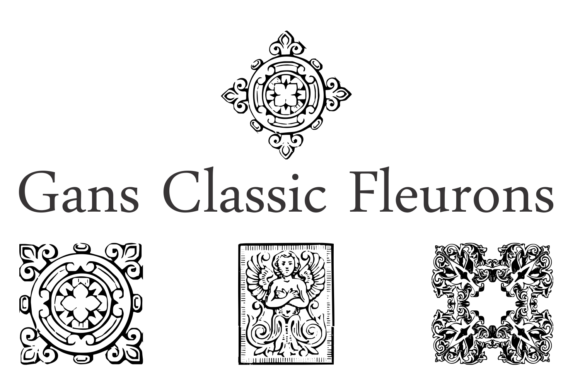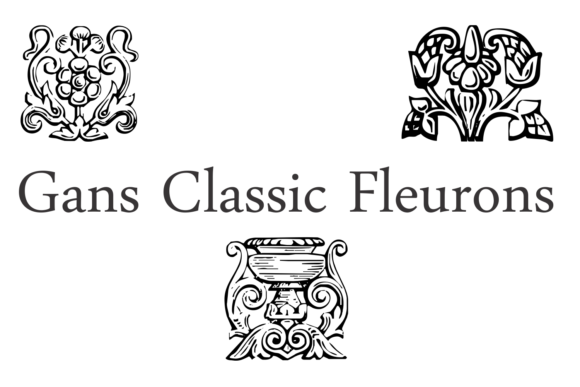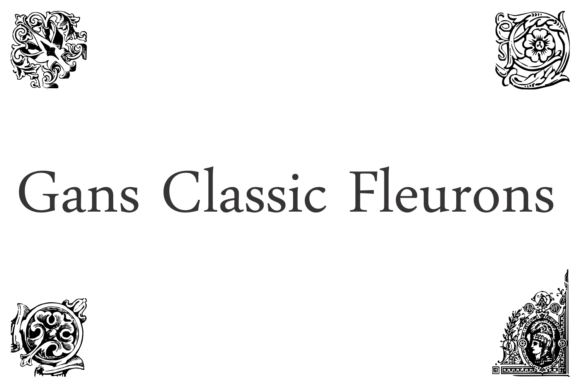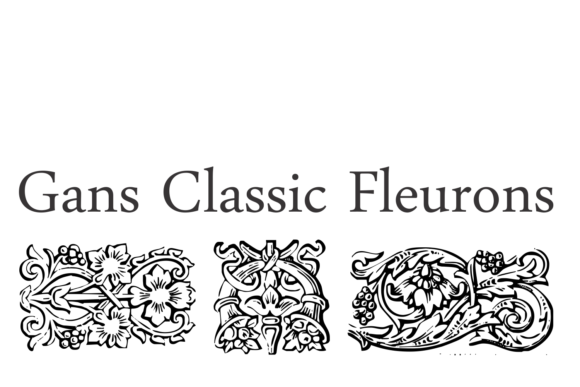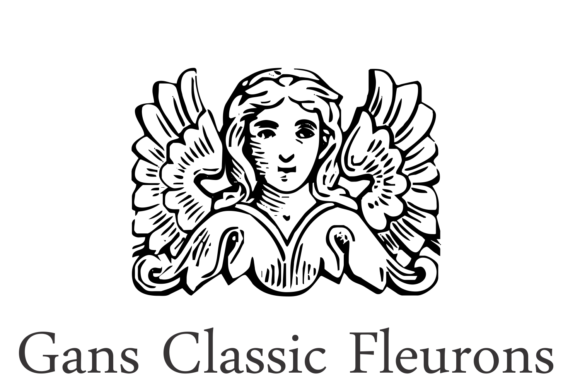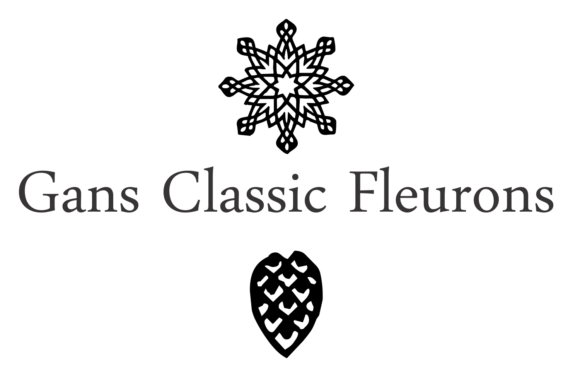
Gans Classic Fleurons Font: Elevate Your Designs with Vintage Flair
Are you a designer or crafter looking to add a touch of elegance and sophistication to your work? Look no further than the Gans Classic Fleurons Font. This stunning dingbat/decorative display font is packed with a wide range of flourishes and ornaments, perfect for creating unique and eye-catching designs that exude a vintage and antique feel.
What is Gans Classic Fleurons Font?
The Gans Classic Fleurons Font is a decorative font that features an extensive collection of fleurons, ornaments, and flourishes. These intricate designs can be used to add a touch of classic elegance to any project, from wedding invitations and stationery to branding and advertising materials. With its rich, vintage aesthetic, this font is perfect for designers and crafters who want to create unique and memorable designs that stand out from the crowd.
Key Features of Gans Classic Fleurons Font
- Extensive character set: The Gans Classic Fleurons Font features a vast array of fleurons, ornaments, and flourishes, giving you a wide range of design options to choose from.
- Vintage aesthetic: The font’s classic, antique feel makes it perfect for creating designs that evoke a sense of nostalgia and sophistication.
- Dingbat/decorative display font: The Gans Classic Fleurons Font is designed specifically for use as a decorative display font, making it ideal for headlines, titles, and other design elements.
- Easily customizable: The font can be easily scaled, rotated, and manipulated to fit your design needs.
Uses for Gans Classic Fleurons Font
The Gans Classic Fleurons Font is incredibly versatile, and can be used in a wide range of design applications, including:
- Wedding invitations and stationery: Add a touch of elegance and sophistication to your wedding designs with the Gans Classic Fleurons Font.
- Branding and advertising: Use the font to create eye-catching logos, business cards, and advertising materials that stand out from the crowd.
- Packaging design: Add a vintage touch to your packaging designs with the Gans Classic Fleurons Font.
- Digital design: Use the font to create stunning digital designs, including social media graphics, blog headers, and more.
Tips for Using Gans Classic Fleurons Font
To get the most out of the Gans Classic Fleurons Font, here are a few tips to keep in mind:
- Use it sparingly: While the Gans Classic Fleurons Font is incredibly beautiful, it can be overwhelming if overused. Use it sparingly to add a touch of elegance to your designs.
- Experiment with different sizes and colors: Don’t be afraid to experiment with different sizes and colors to find the perfect combination for your design.
- Pair it with complementary fonts: Pair the Gans Classic Fleurons Font with complementary fonts to create a cohesive and visually appealing design.
The Gans Classic Fleurons Font is a stunning decorative display font that is perfect for designers and crafters looking to add a touch of vintage elegance to their work. With its extensive character set, vintage aesthetic, and ease of use, this font is sure to become a staple in your design toolkit. Whether you’re creating wedding invitations, branding materials, or digital designs, the Gans Classic Fleurons Font is the perfect choice for adding a touch of classic sophistication to your work.